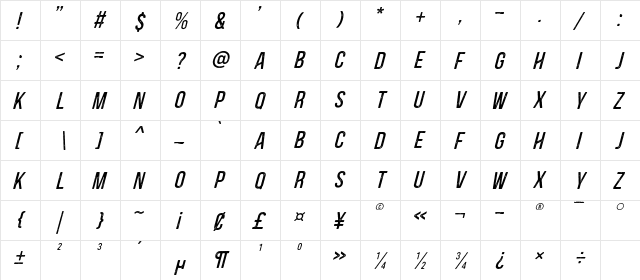
Blackside Rust Italic Regular
Design Context for Blackside Rust Italic Typeface
Blackside Rust Italic takes a measured approach to typography — its balanced proportions and neutral character make it a reliable workhorse for both digital and print work. Its italic angle brings a sense of urgency and motion to the letterforms.
Pro Tip: Use Blackside Rust Italic for emphasis, pull quotes, and subheadings where its slanted energy can add rhythm to the layout.